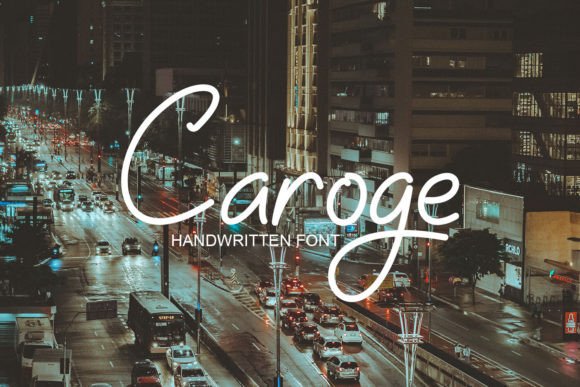
Discover the Elegance of Caroge Handwritten Font
Have you ever been in the middle of a design project, and suddenly, you’re stuck on finding the perfect font? I recall a particularly frustrating experience while working on a wedding invitation design. My client wanted something elegant, yet personal, and I was on a mission to find a font that embodied both qualities. That’s when I stumbled upon the Caroge Handwritten Font, and it completely transformed my design. In this article, I’ll share with you why Caroge has become a staple in my design toolkit and how you can make the most of its beautiful, artistic flair.
What Makes Caroge Stand Out?
The Caroge Handwritten Font is the epitome of elegance and artistry in typography. Its personal and organic essence breathes life into your text, making it perfect for a variety of design purposes. Whether you’re creating invitations, designing logos, working on branding projects, or crafting social media content, Caroge adds a touch of intimacy and personality that sets your designs apart.
An Honest Review of Caroge Font
The Good: What I Love About Caroge ✨
- ✅ Elegant and Artistic: Caroge brings a level of sophistication and creativity to any project.
- ✅ Versatile: Suitable for a wide range of design applications, from formal to casual.
- ✅ Easy to Read: Despite its artistic nature, Caroge remains highly legible.
- ✅ Unique Texture: Its fluid and smooth feel adds a visually pleasing texture to your designs.
The Not-So-Good: A Few Quirks 🤔
- ⚠️ May Not Be Suitable for Body Text: Due to its artistic nature, Caroge might not be the best choice for lengthy body text.
- ⚠️ Requires Attention to Kerning: As with many handwritten fonts, you might need to adjust kerning for optimal results.
- Experiment with OpenType features and glyphs to add more variety to your text.
- Take advantage of stylistic alternates and swashes to add a personal touch to your designs.
Alternatives to Caroge Font
If you’re looking for similar fonts or want to explore other options:
- Pacifico: A beautiful, elegant script with a relaxed feel. Ideal for designs that require a bit of a casual touch.
- Great Vibes: Offers an adventurous yet refined feel. Great for headings and titles that need a bit of flair.
- Lobster: A stunning, elegant script perfect for formal designs. Use it for luxury branding or high-end invitations.
- Playfair Display: While a display font, it shares a similar elegance. Suitable for headings and titles where you want to make a statement.
The Backstory of Caroge Font
Caroge was inspired by the beauty of handwritten notes and letters. Its designer aimed to capture the fluidity and elegance of handwriting, making it perfect for designs that require a personal touch. The name “Caroge” reflects the blend of artistic expression and technical precision that went into creating this unique font.
Q: Is Caroge suitable for body text?
A: While Caroge is beautiful, it’s best used for headings and short paragraphs due to its artistic nature.
Q: Does Caroge support OpenType features?
A: Yes, Caroge supports OpenType features, allowing you to access a range of glyphs and stylistic alternates.
Q: Can I use Caroge on social media?
A: Absolutely! Caroge can add a unique and personal touch to your social media posts and stories.